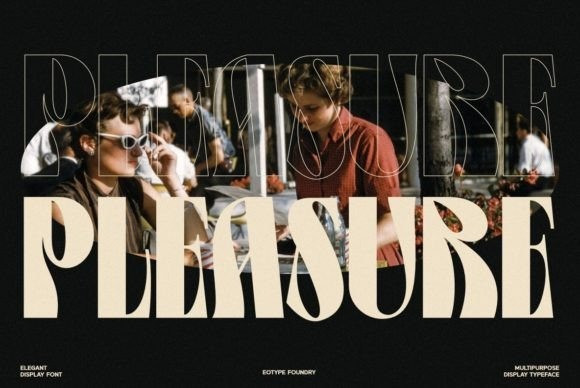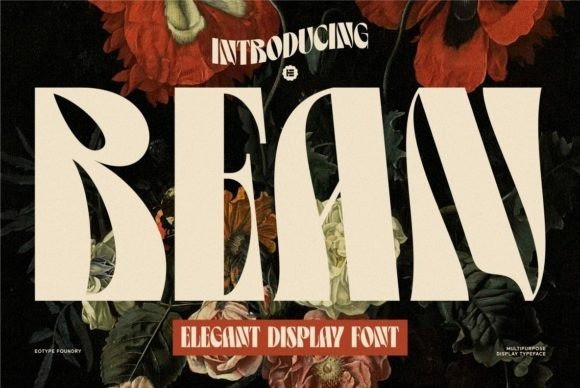
Bean Font
Bean Font is a unique retro condensed display font. It has gorgeous curved characters and a thick size. This font is suitable for vintage retro designs be it posters, banners, logos, headline projects, stickers, and more.